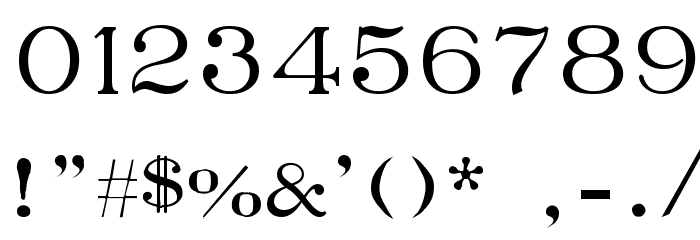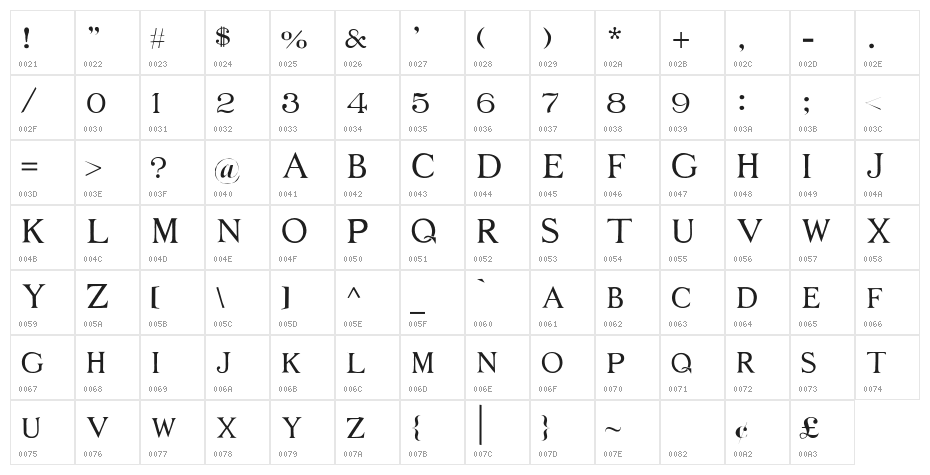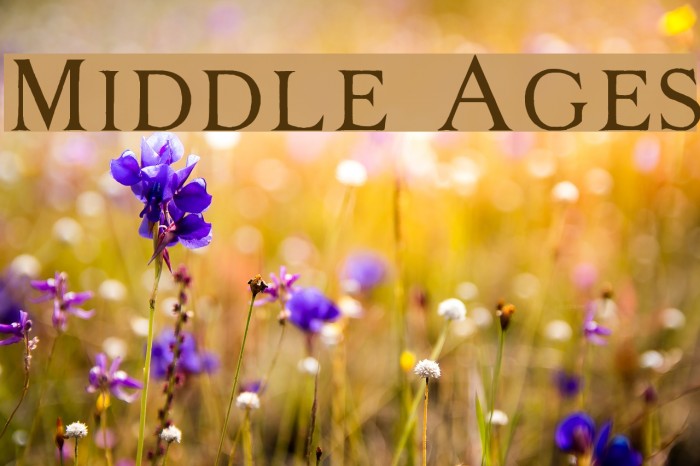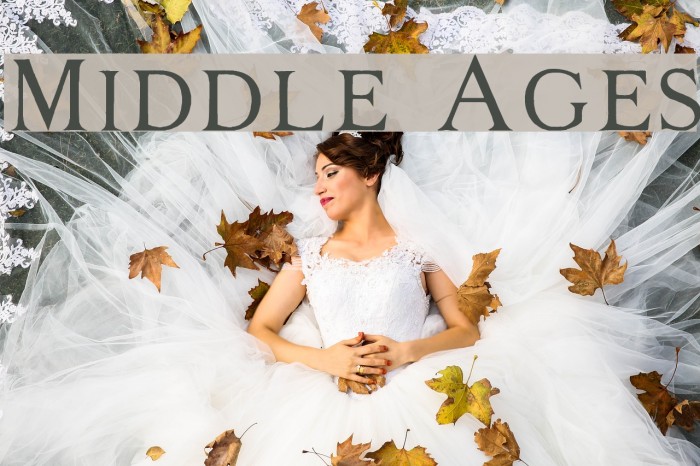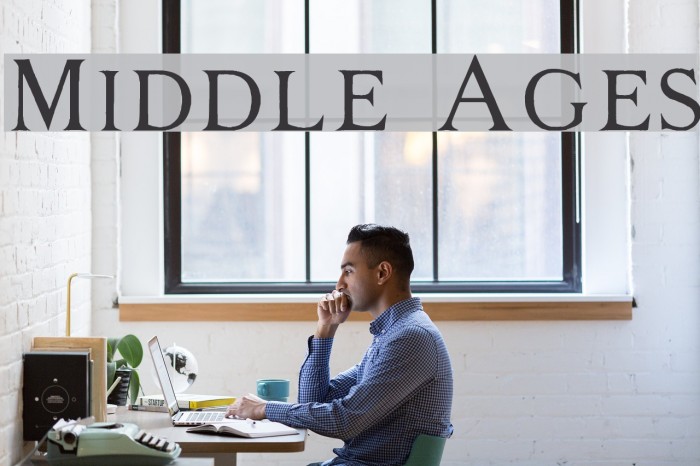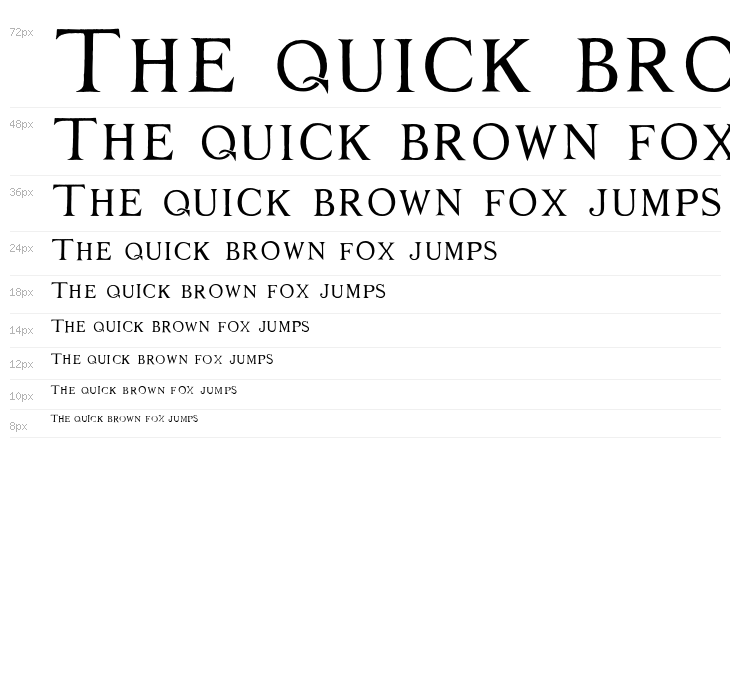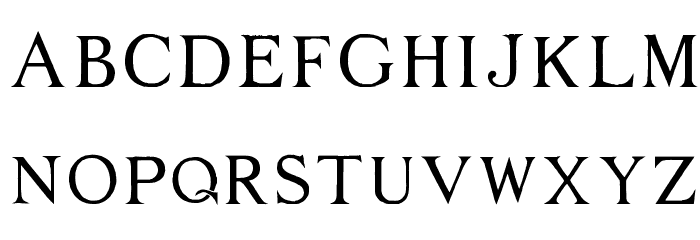
Middle Ages Font
Middle Ages Description
This font exudes a classic and historical charm reminiscent of medieval manuscripts. The characters are adorned with subtle serifs and a slightly uneven stroke, giving them an authentic, hand-crafted appearance. The uppercase letters are bold and commanding, while the lowercase letters maintain a consistent style, ensuring readability. The numerals are distinct and well-proportioned, complementing the overall aesthetic. Special characters are elegantly integrated, maintaining the font's cohesive look. This typeface is perfect for projects that require a touch of antiquity and elegance.
| Use Case | Headlines, Logos, Decorative text |
| Proposed Projects | Ideal for historical novels, themed event invitations, branding for vintage products, and decorative signage. |